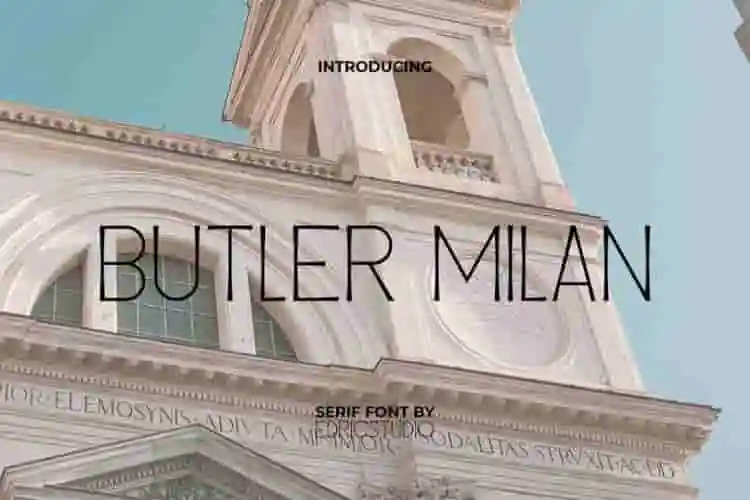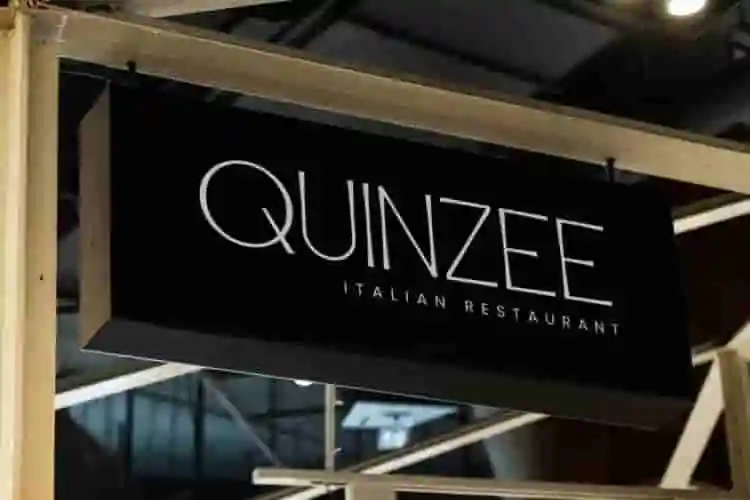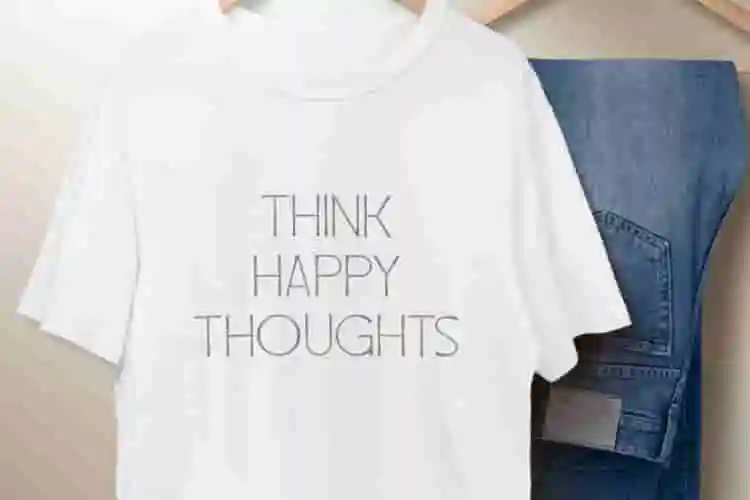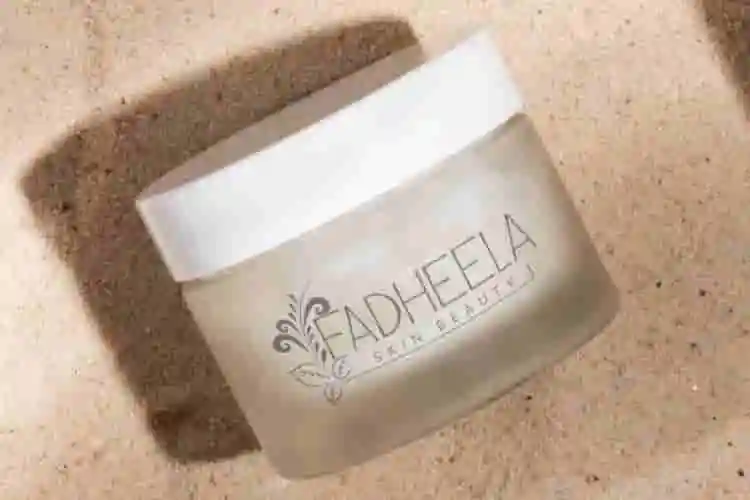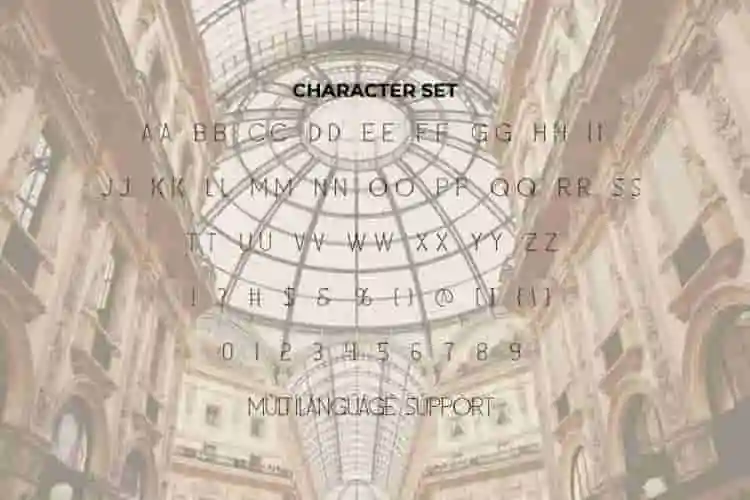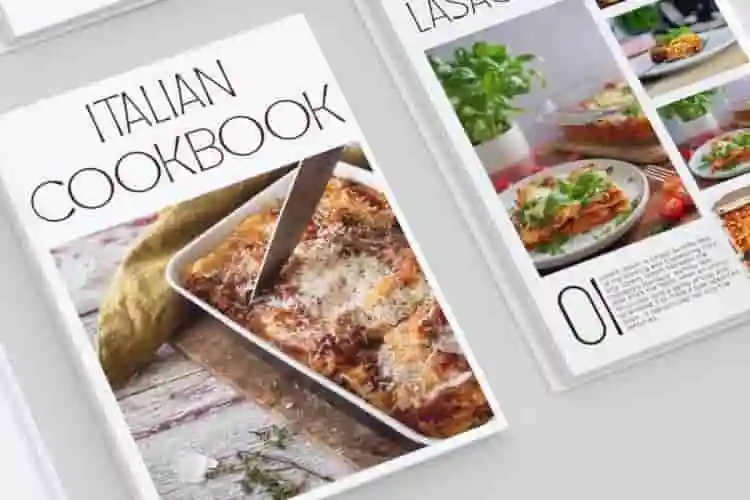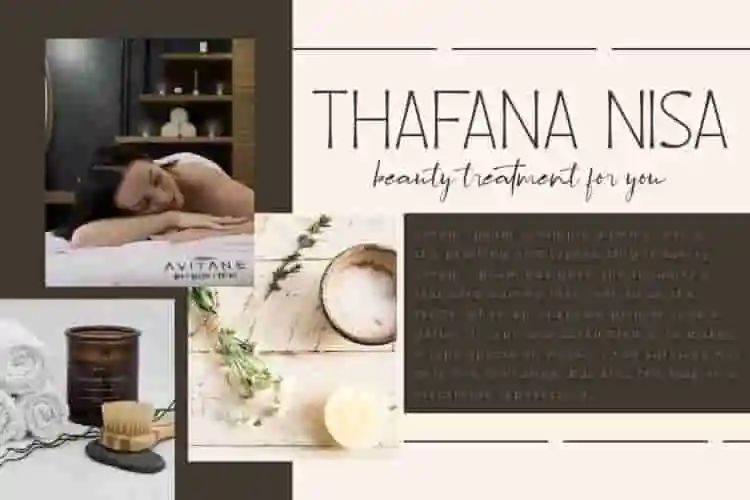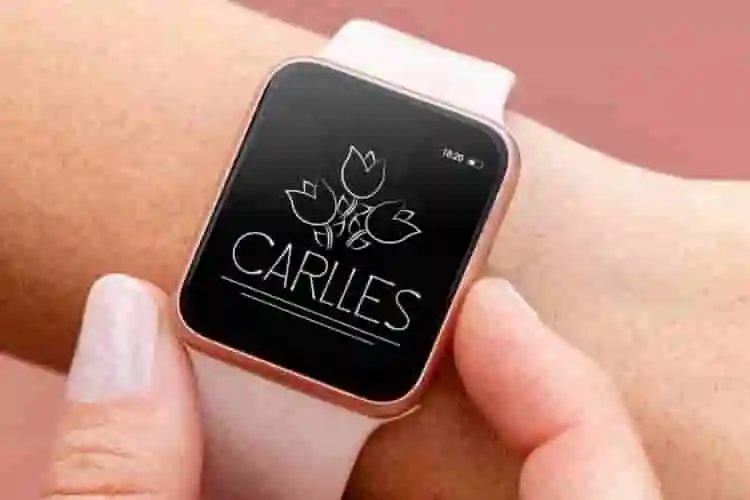
Butler Milan Font is a minimalist yet stunning serif display font in a beautiful way. This combination of thick or thin lines and the characteristic of serif “counterstroke” is perfectly created to create an impression of elegance and stylish at the same time. It will be suitable for any business, such as accessories, art, beauty product, entertainment, event organizer, café, fashion, food and beverages, photography, printing, publishing, restaurant, writer, and many more!
Butler Milan Font comes with full set of ALL CAPS for Uppercase and Lowercase Basic Characters, Number, a large range of Punctuation, and Symbol. It has cool characters set, perfectly managed with well spaced and kerning. Butler Milan Font will be able to complement for any design (with extended license) including: brand image, cover, custom design, label, merchandise, packaging design, poster, quote, screen print, signage, stationery, sticker, title, website, etc.
Introducing Butler Milan Display Font — a timeless and elegant display typeface that captures the essence of modern luxury. With high-contrast strokes, stylish serifs, and a fashion-forward attitude, this font was made for designs that demand attention and admiration.
Crafted for premium branding, editorials, and upscale packaging, Butler Milan Display Font brings a sense of authority and grace to every letter. Whether you’re creating a logo for a luxury label, a magazine headline, or classy social media graphics, this display font delivers pure sophistication.
The font features refined proportions, artistic letterforms, and a confident presence — making it ideal for high-impact display use. Let your typography speak with elegance and clarity.
- Elegant Display Serif
- All-Caps Typeface